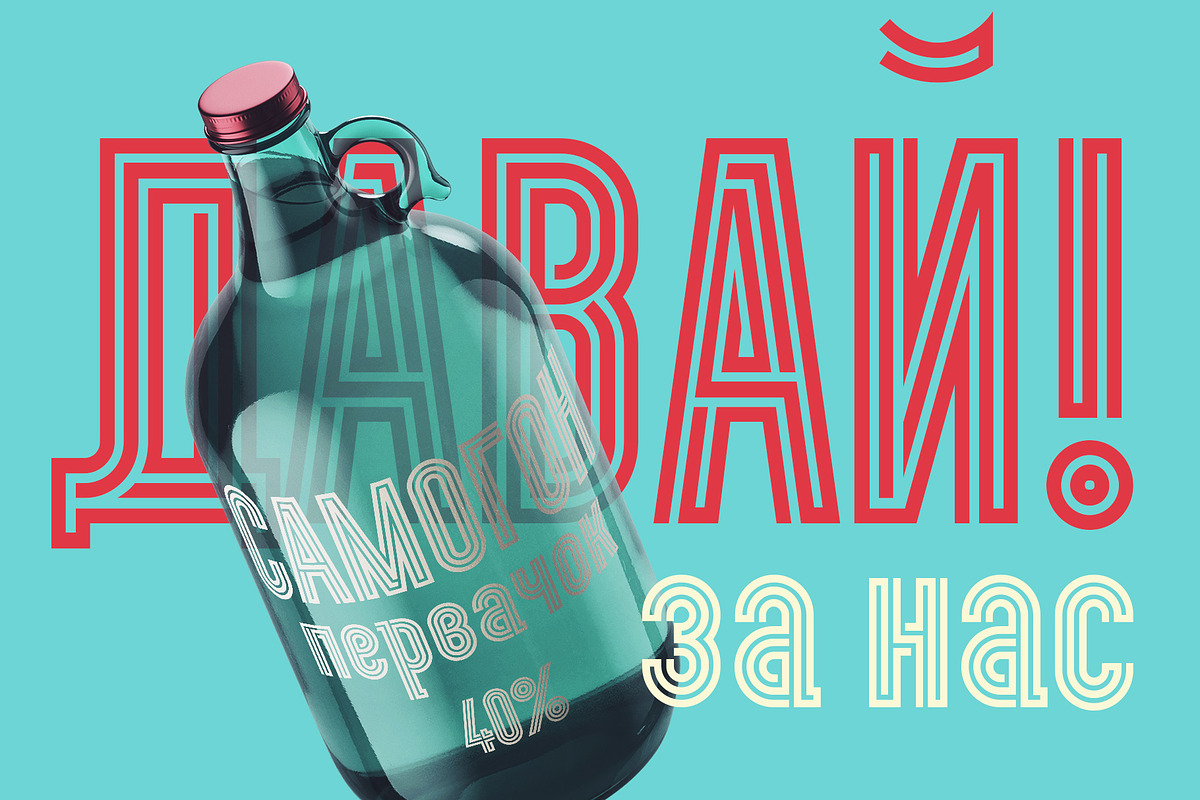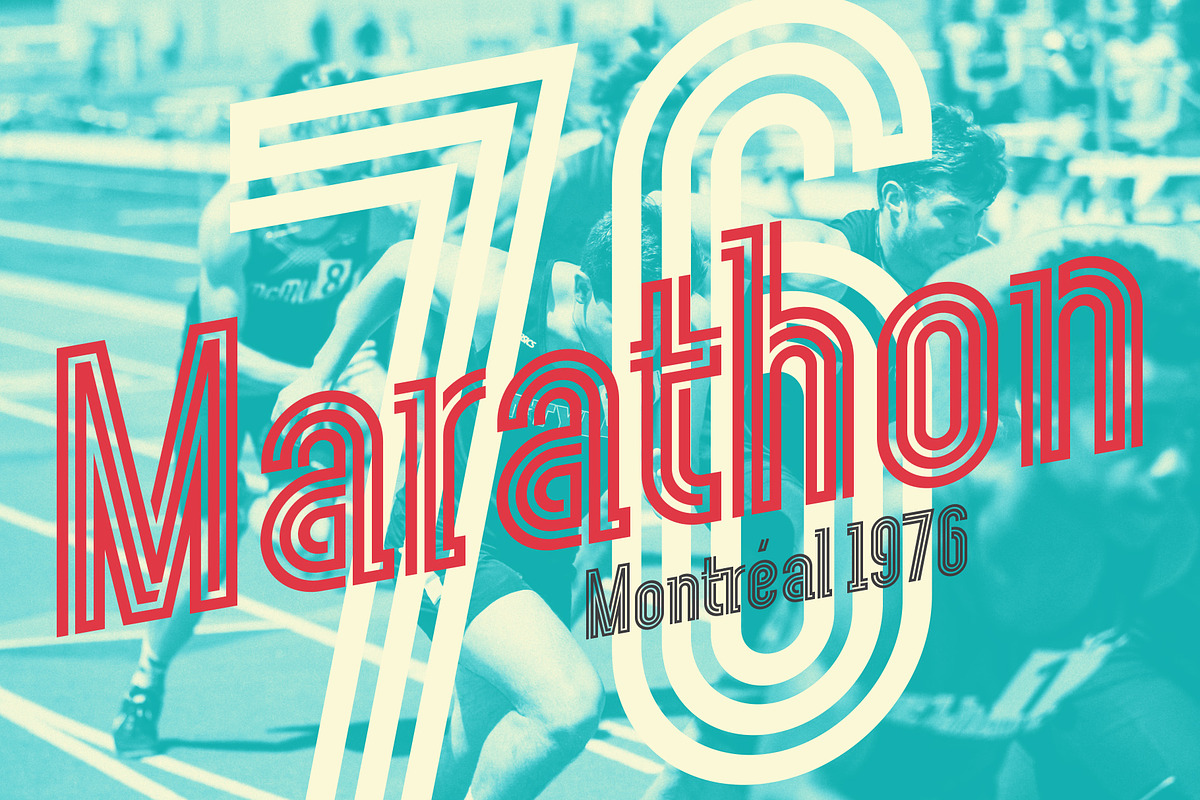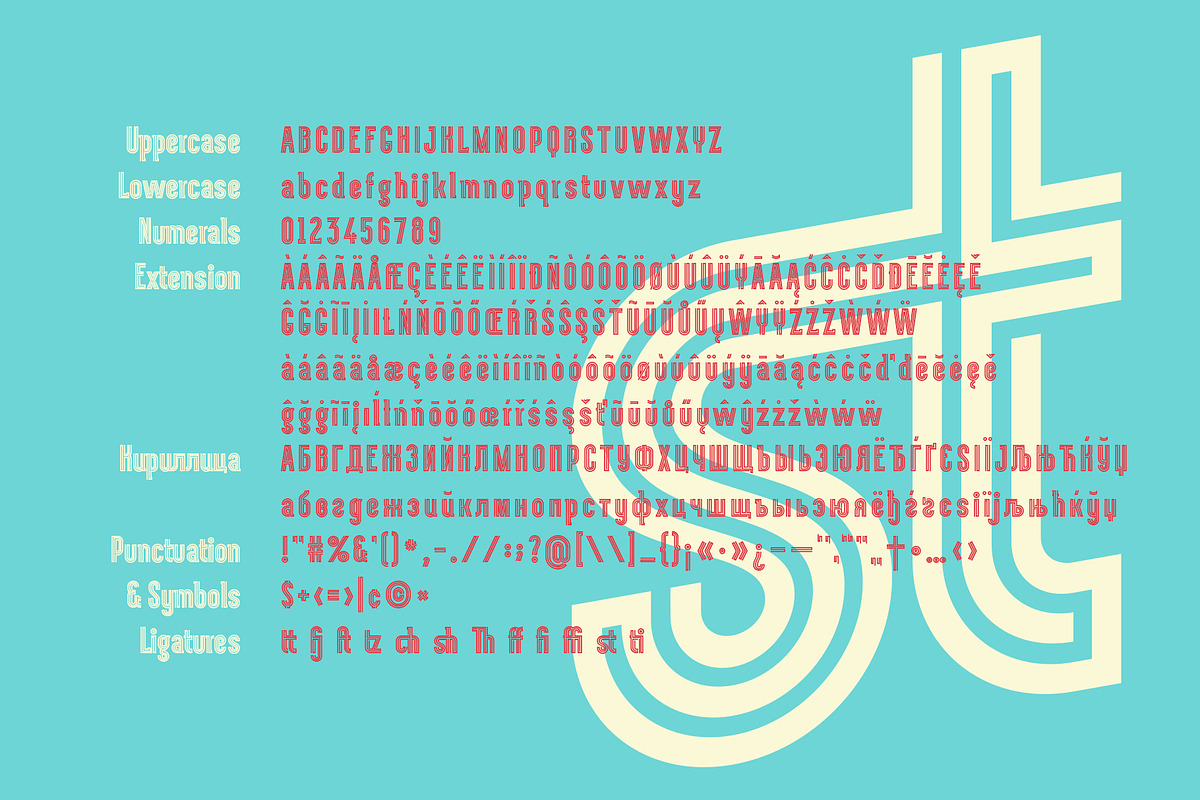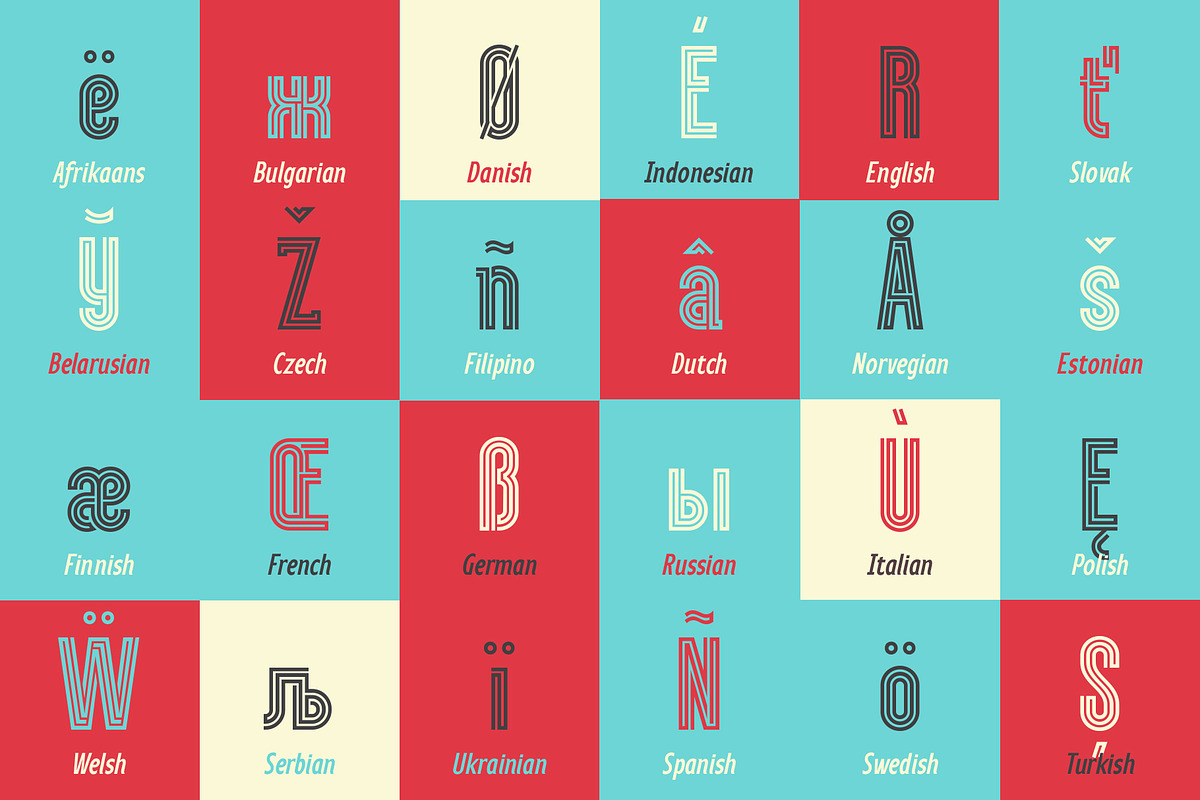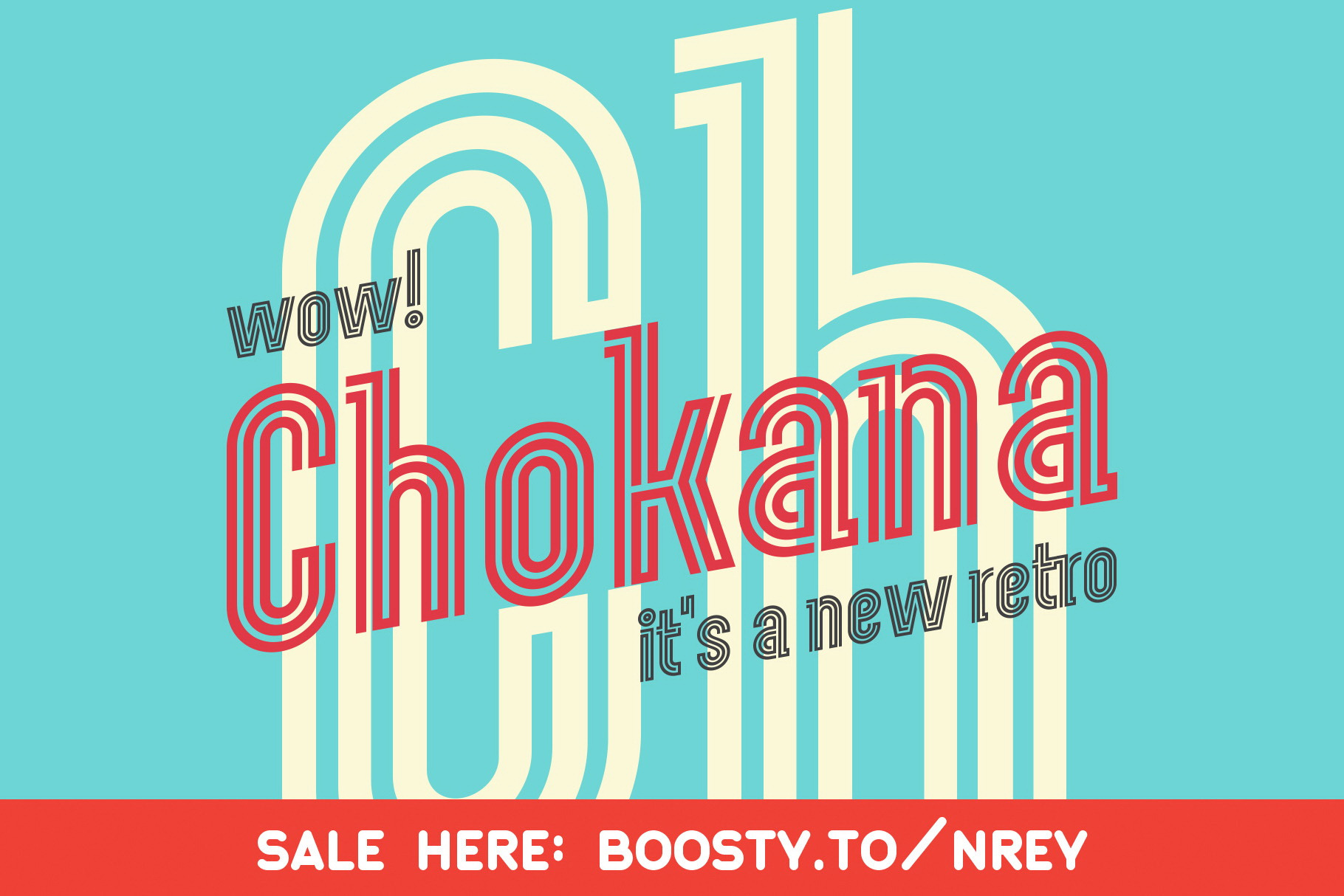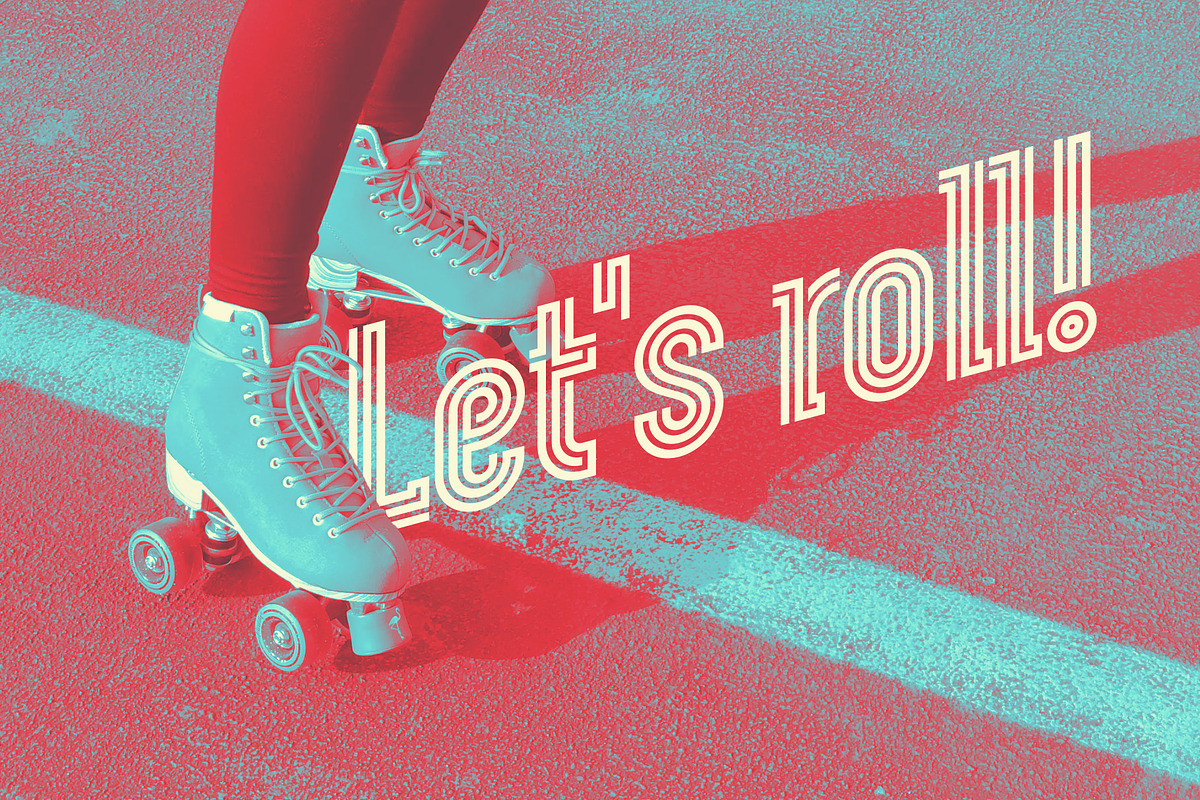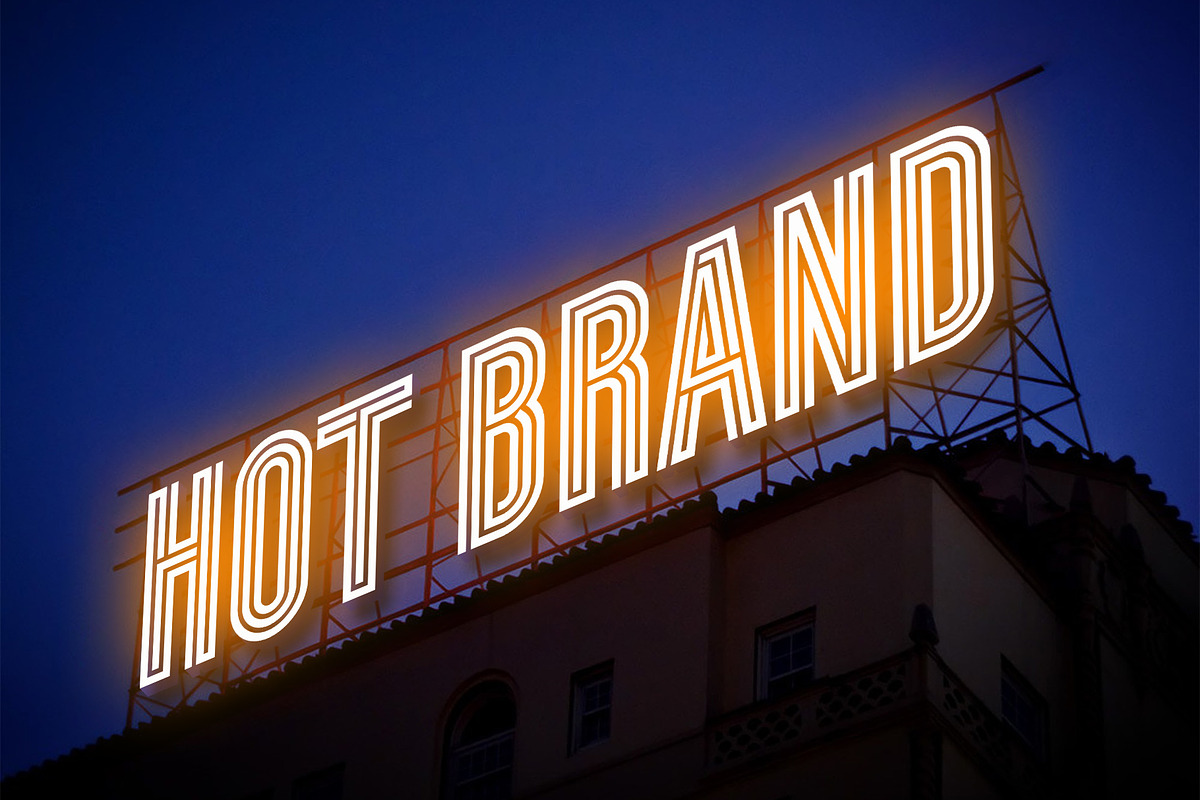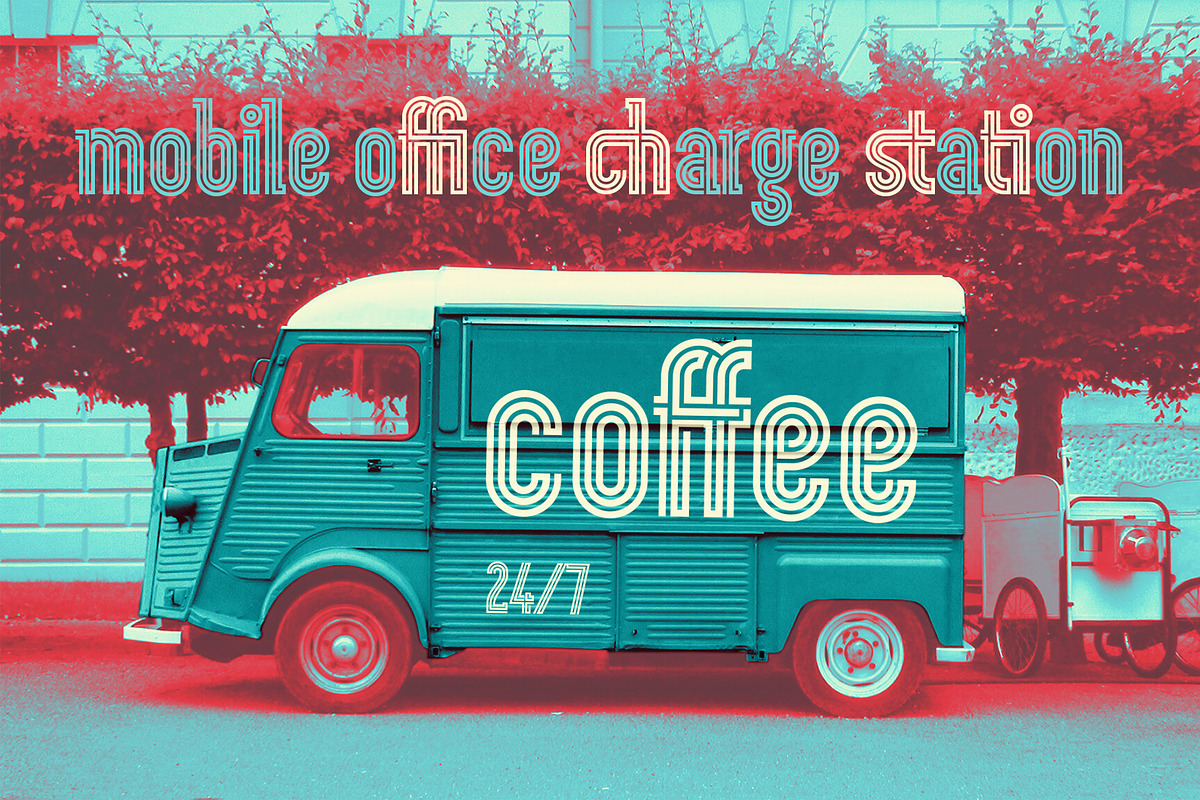
Chokana - new retro font
Introducing Chokana, a nostalgic multi-line font inspired by the 70's aesthetic.
Font looks amazing as alone words and as full text blocks. Also it good for bright captions and unforgettable logos. This font could be the perfect solution if you want to give a lovely retro touch to your designs.
Chokana family: